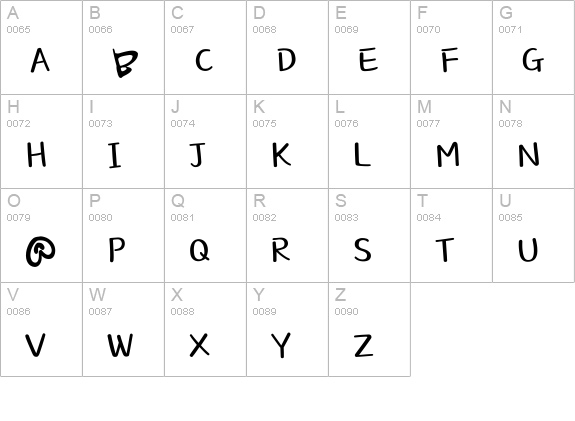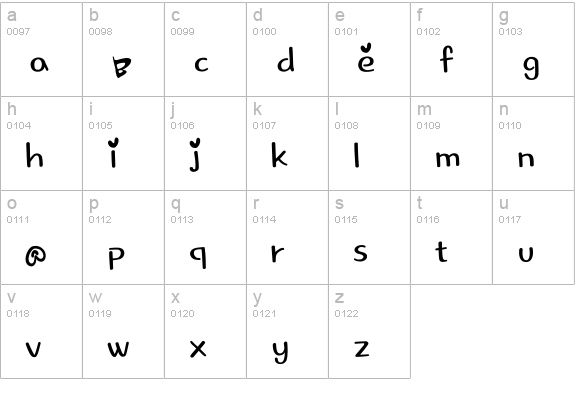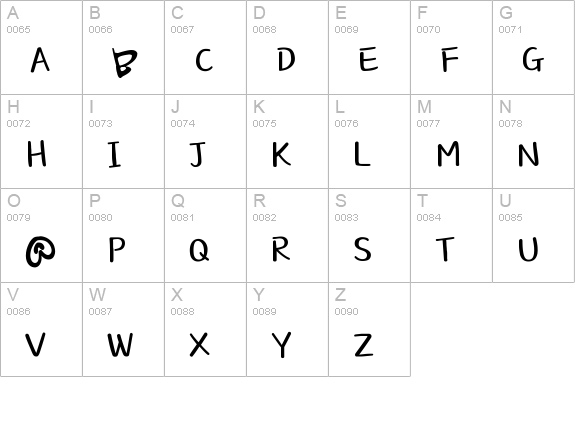
lovingyou Font Details
LovingYou font is a beautiful and elegant typeface that embodies the essence of love and romance. With its graceful curves and delicate strokes, this font captures the sentiment behind every heartfelt message. Its flowing design adds a touch of sophistication to any project, making it perfect for wedding invitations, love letters, or any other romantic endeavor. One of the best things about LovingYou font is that it is completely free. Yes, you read that right - this stunning typeface can be yours without spending a penny. It is freely available to download at FontsMarket.com, a trusted source for high-quality fonts. Whether you are a graphic designer looking to add a touch of romance to your creations or simply want to express your love in a unique and stylish way, LovingYou font is the perfect choice. Its versatility allows it to be used in various design projects, from branding and advertising to personal projects and crafts. The attention to detail in the design of LovingYou font is remarkable. Each letter is carefully crafted to ensure a seamless flow and a harmonious overall appearance. The result is a typeface that radiates love and tenderness, captivating the viewer and conveying the intended message with grace and beauty. So why wait? Embrace the power of love and download LovingYou font today, completely free of charge, from FontsMarket.com. Let this enchanting typeface bring your words to life and create a lasting impression filled with warmth and affection.